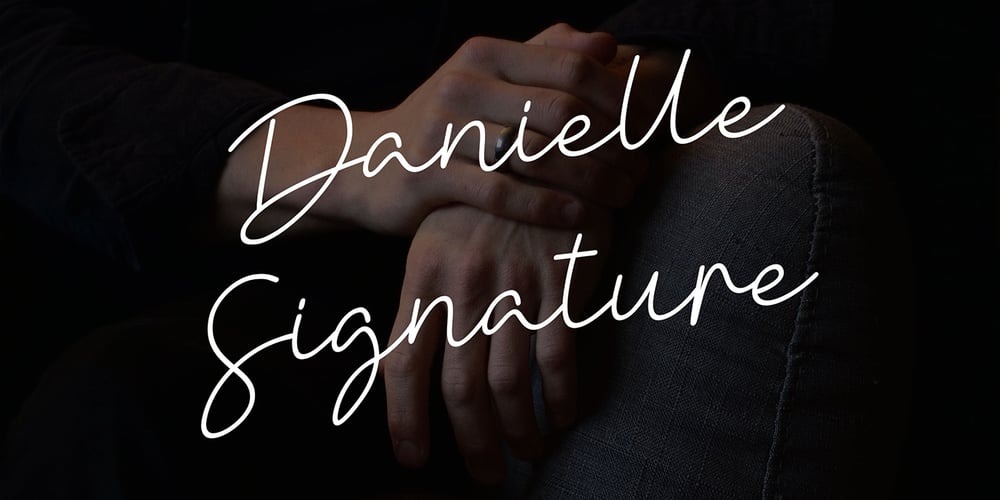
Danielle Signature Font Family was designed by Yahdi Kumala and published by Rometheme. Danielle Signature contains 1 styles and family package options. Danielle Signature font. It has a elegant, classy look and beauty.It’s a great font for fashion, apparel projects, signature, album cover, logo, branding, magazine, social media, & advertisements, but also works great for other projects.Highlight : The perfect font choice for powerful projects – watermarks, signatures, photography, logos, business cards, quotes, album covers. No special software is required, The fonts can be opened and used in almost any program/software that can read standard fonts – even MS Word